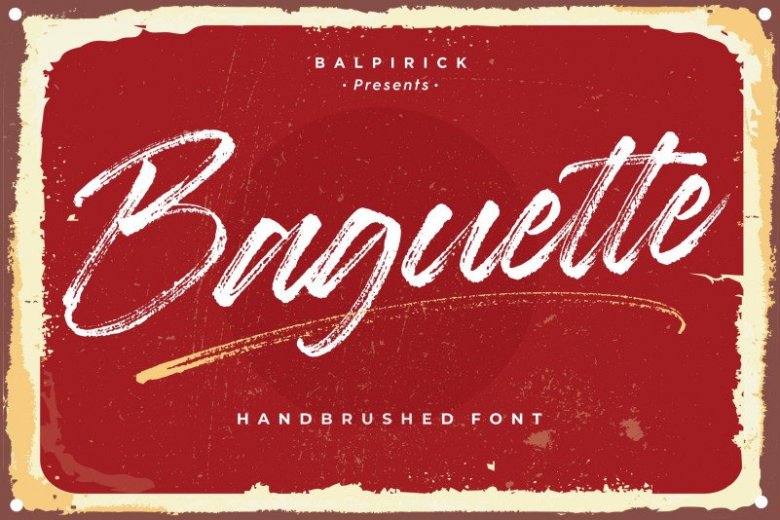
Baguette Brush Font
Baguette is a Natural Handbrushed Font.
Baguette Brush is perfect for product packaging,logo, invitation, stationery, branding project, label, photography, watermark, megazine, social media post, wedding, or just used to express words above the background.